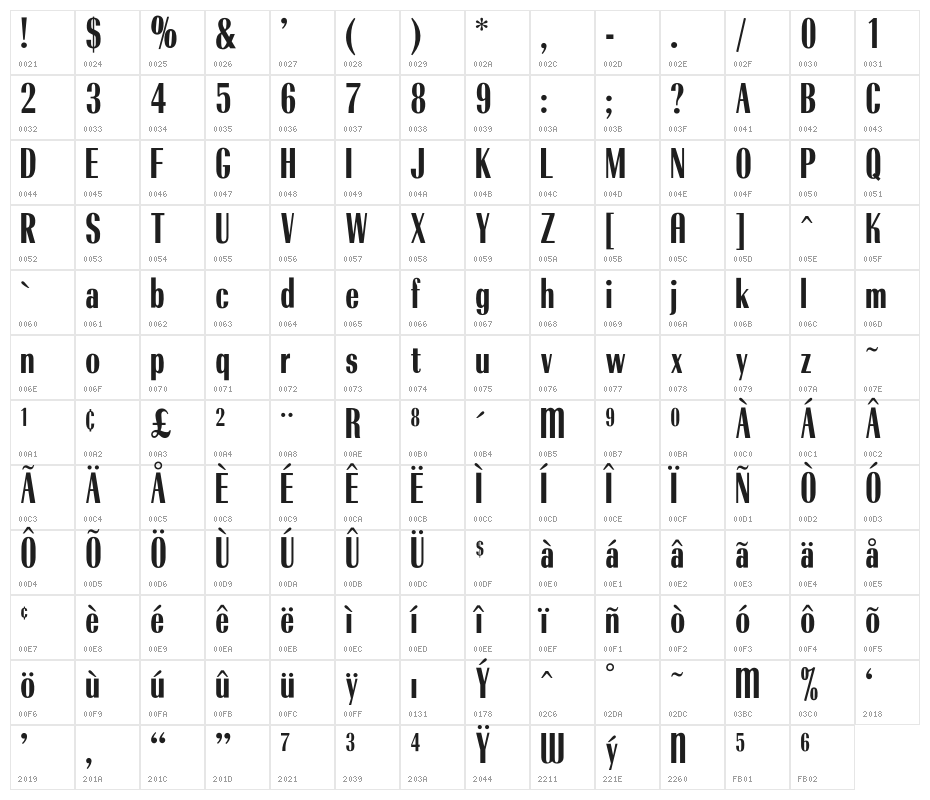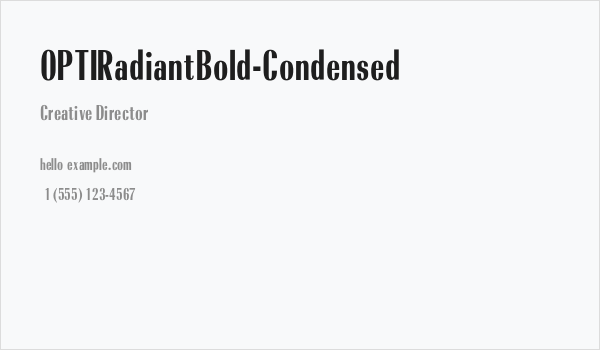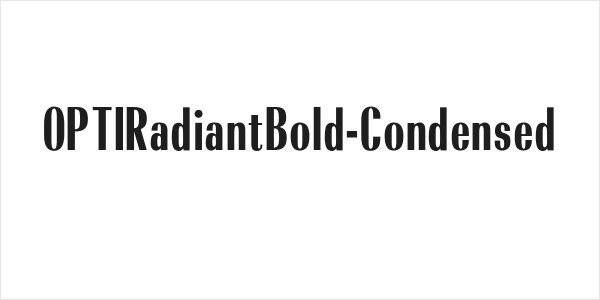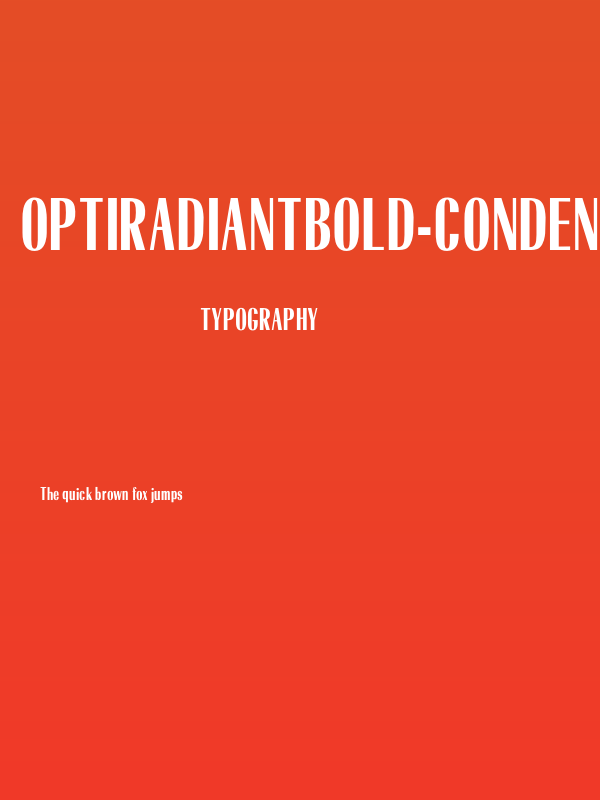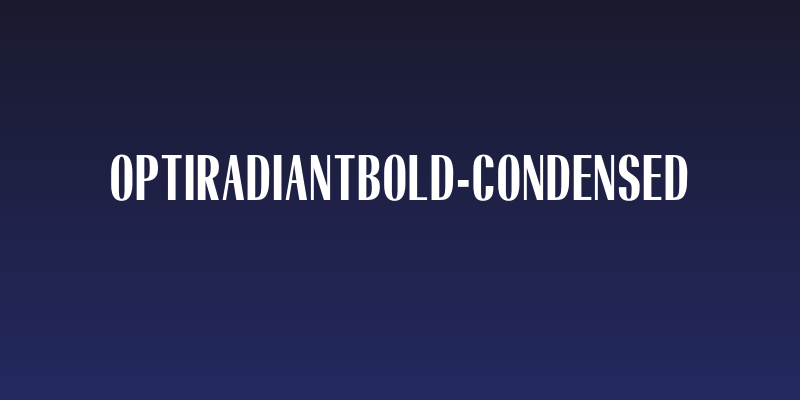
OPTIRadiantBold-Condensed Font
OPTIRadiantBold-Condensed Description
This font features a bold and condensed style, characterized by its strong vertical emphasis and minimal stroke contrast. The uppercase letters are tall and commanding, while the lowercase letters maintain a consistent height, enhancing readability. The numerals are robust and align well with the overall design, making them suitable for impactful displays. Special characters are crafted with precision, ensuring they integrate seamlessly with the alphabetic characters. This font's condensed nature allows for efficient use of space, making it ideal for headlines and titles where space is limited.
| Proposed Projects | Ideal for headlines, posters, and branding projects where a strong, impactful presence is required. |